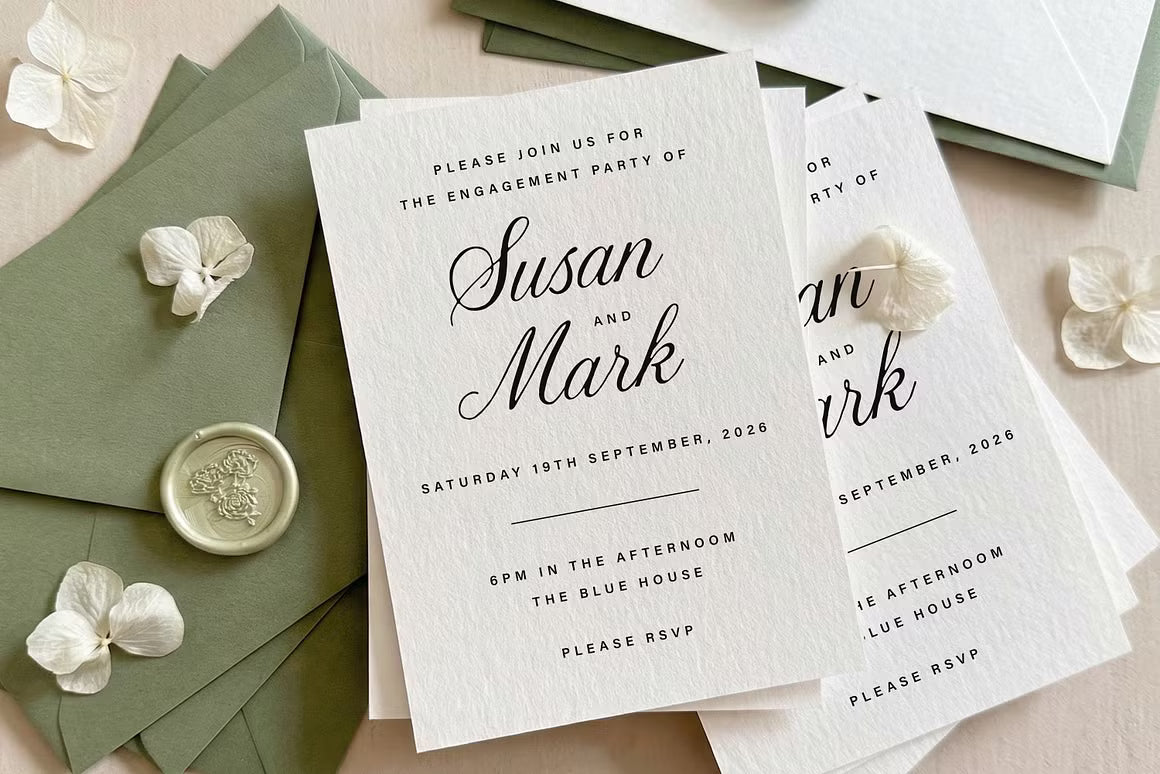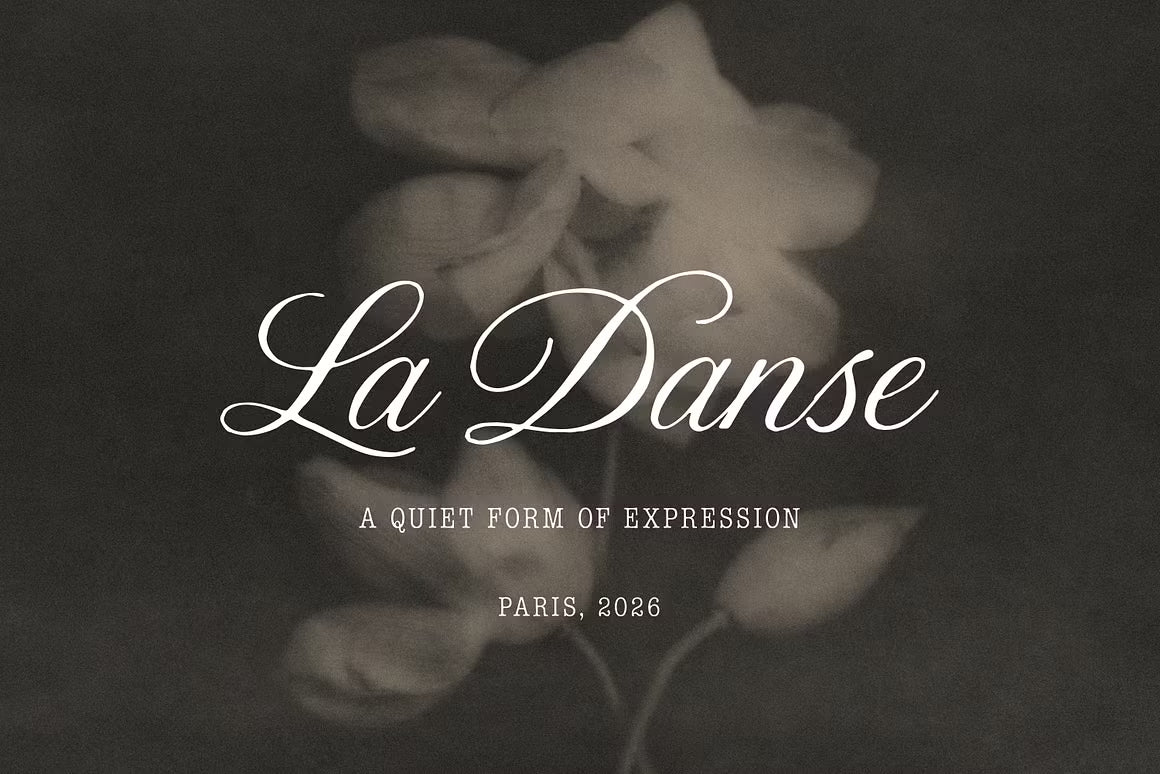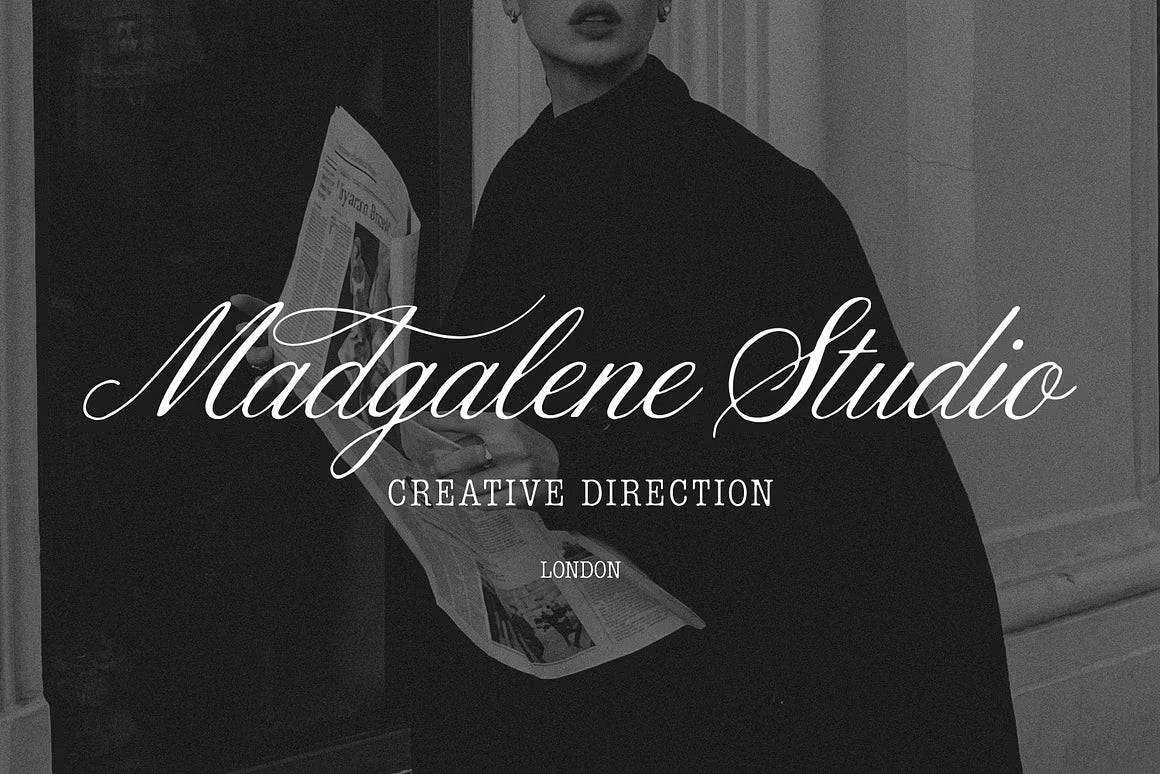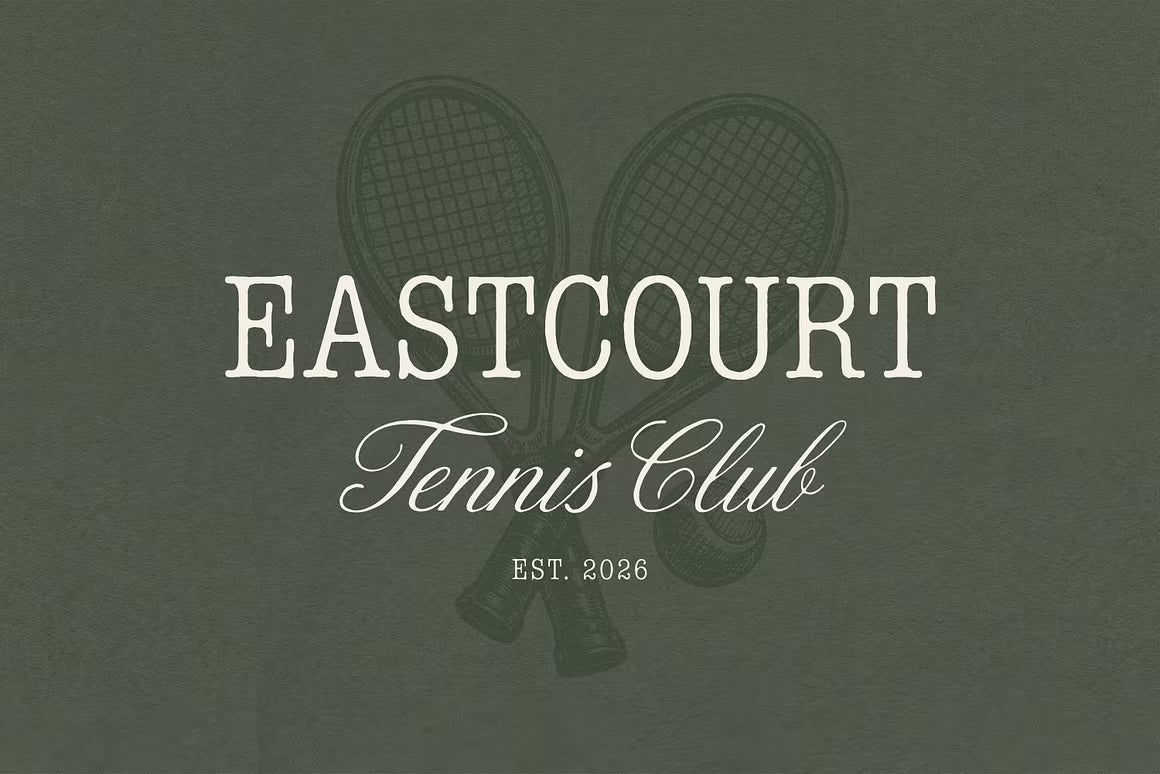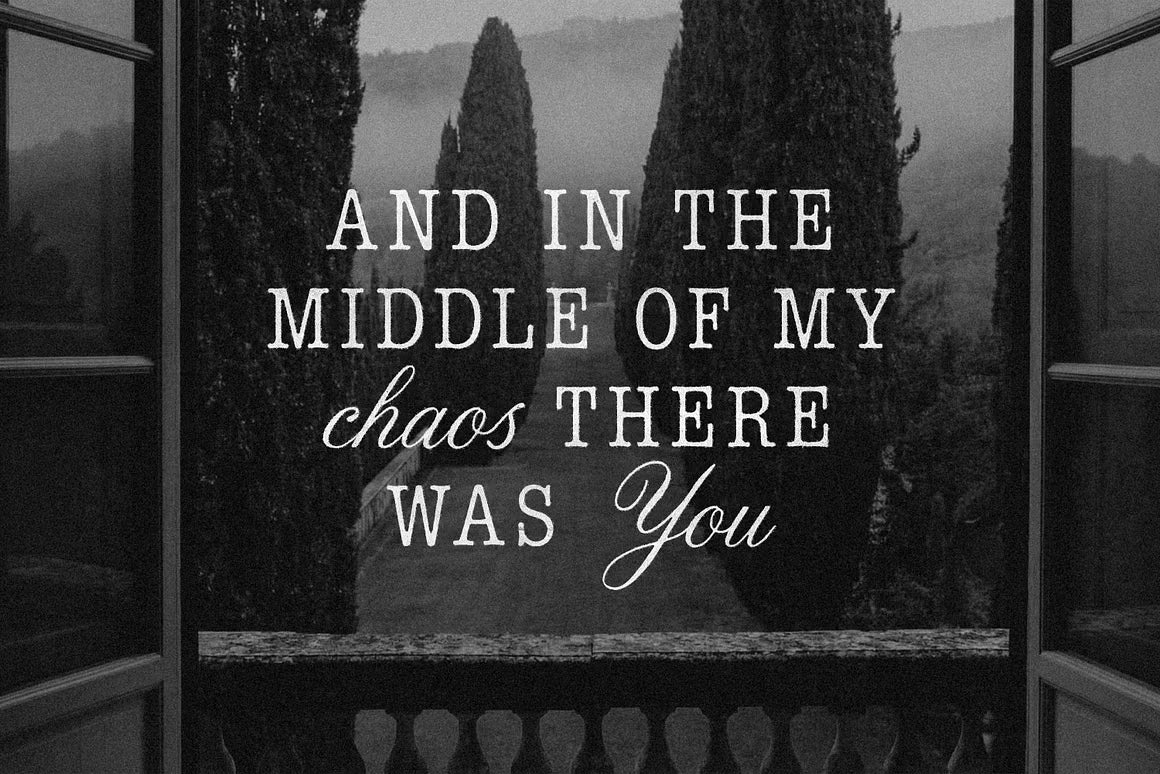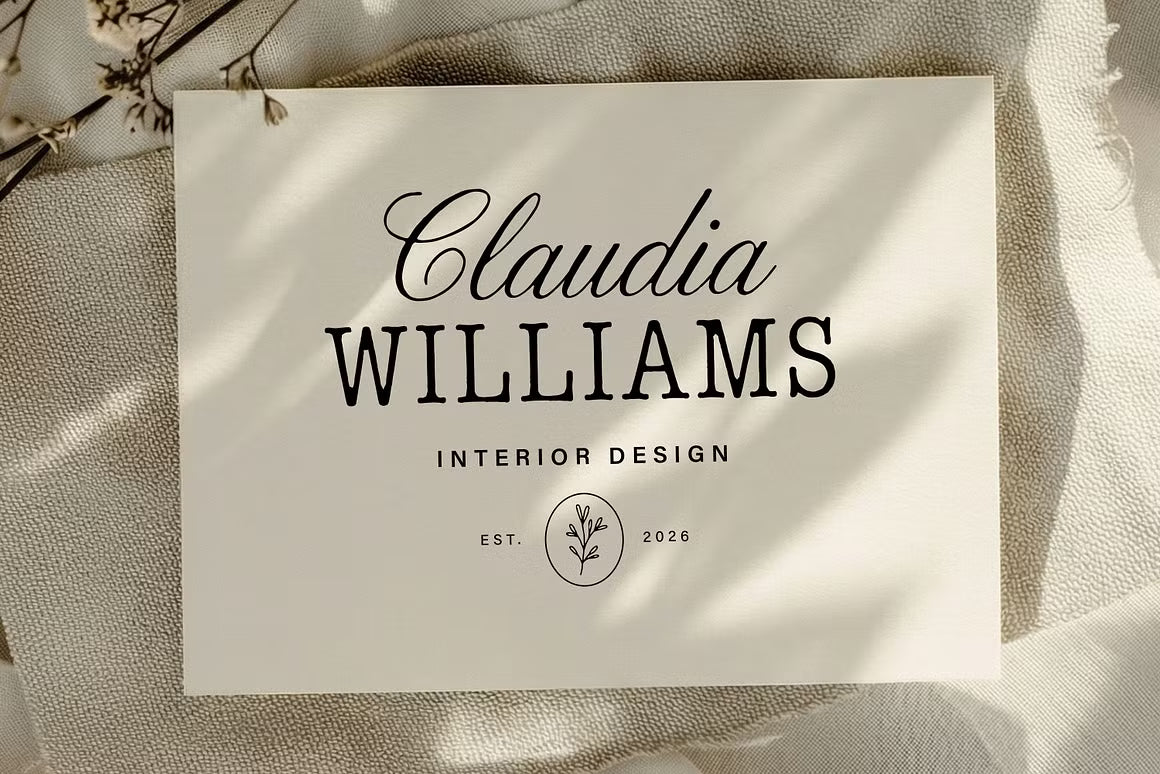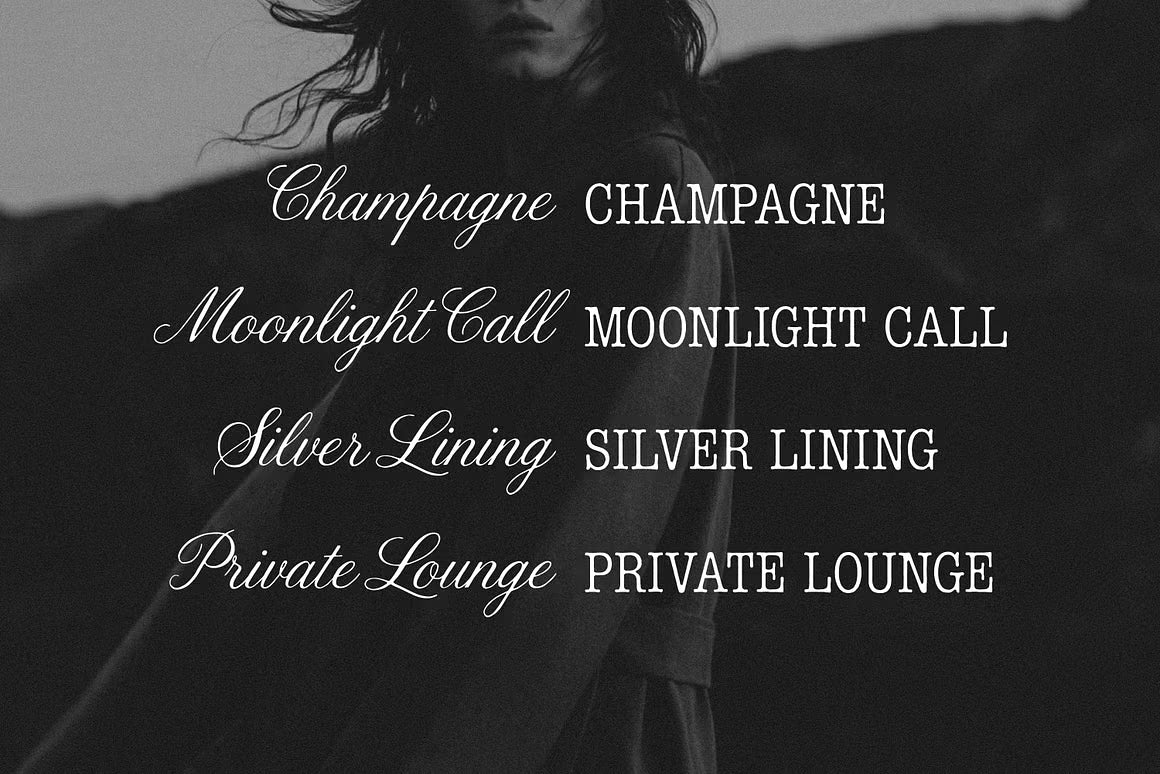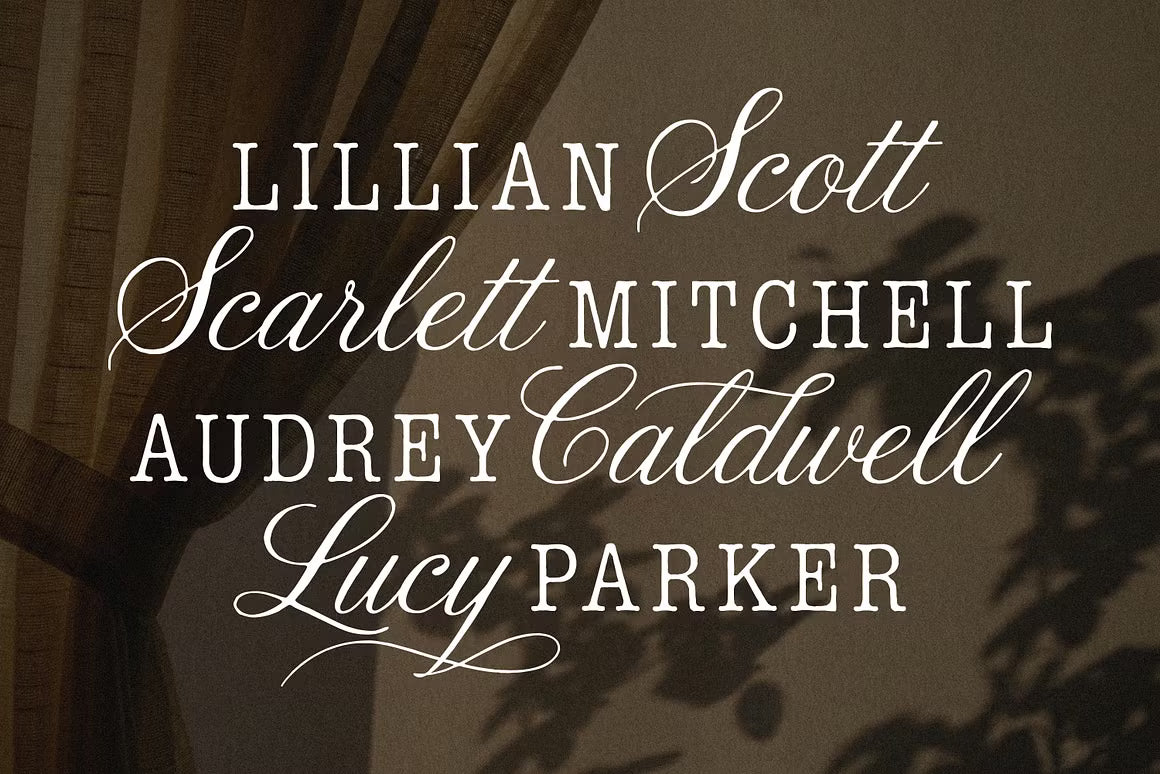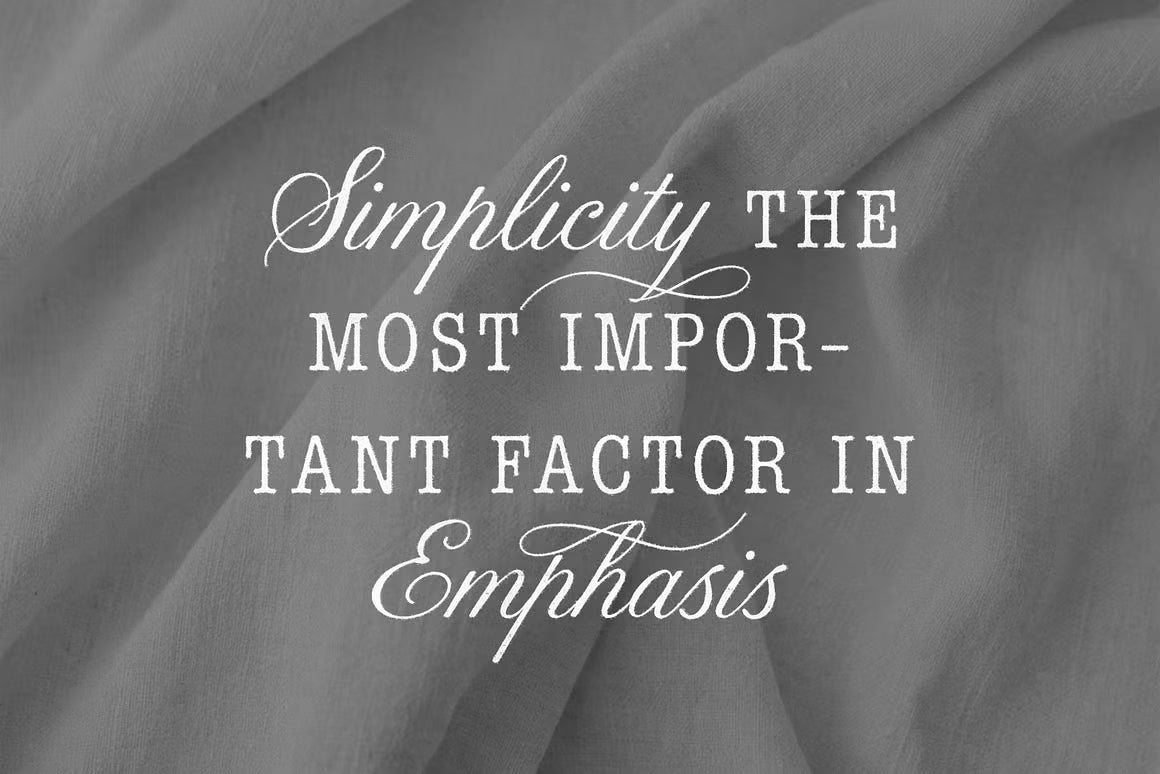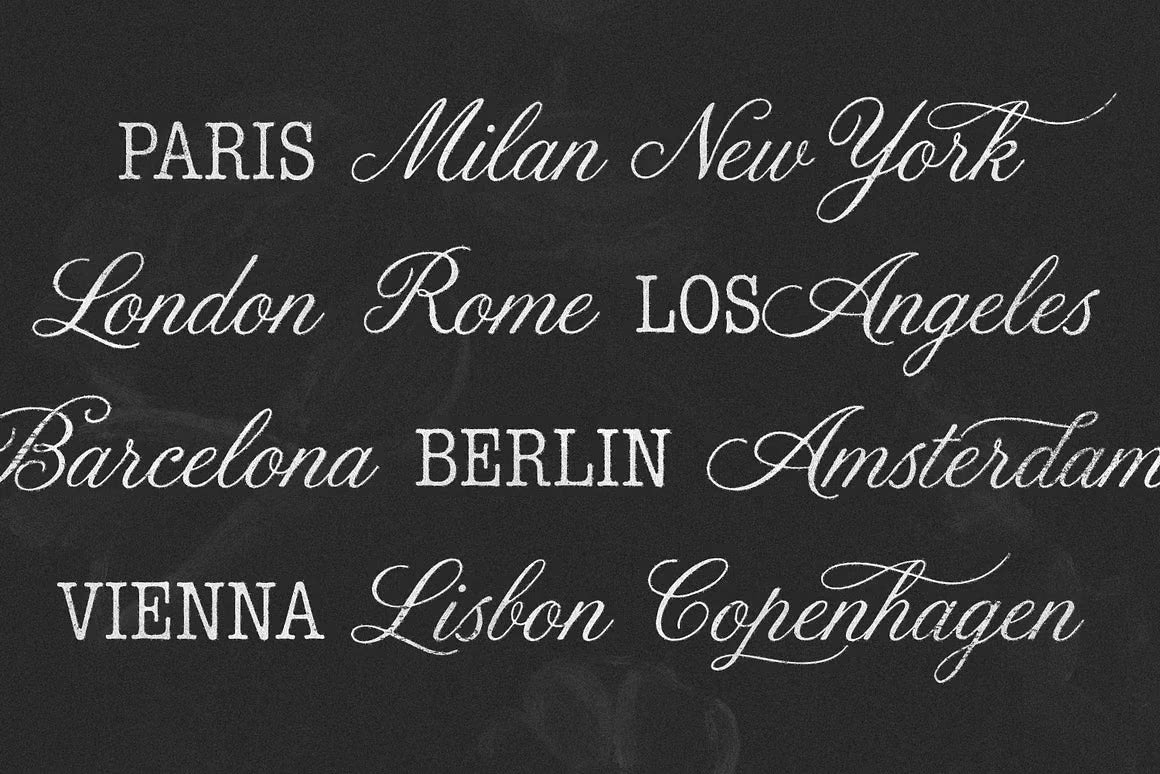
Details – Refined Font Duo masters the art of contrast, pairing a fluid hand-drawn script with a soft, structured slab serif. The result is a sophisticated yet approachable combination that feels intentional and elevated — perfect for projects where every detail matters.
The script brings warmth and personality with its natural flow and custom alternates, while the slab serif provides balance, clarity, and a grounded presence. Together, they create beautiful harmony for editorial work, high-end branding, wedding stationery, packaging, and refined social identities.
A thoughtful duo for designers who appreciate typography that feels both luxurious and human.
Details - Refined Font Duo